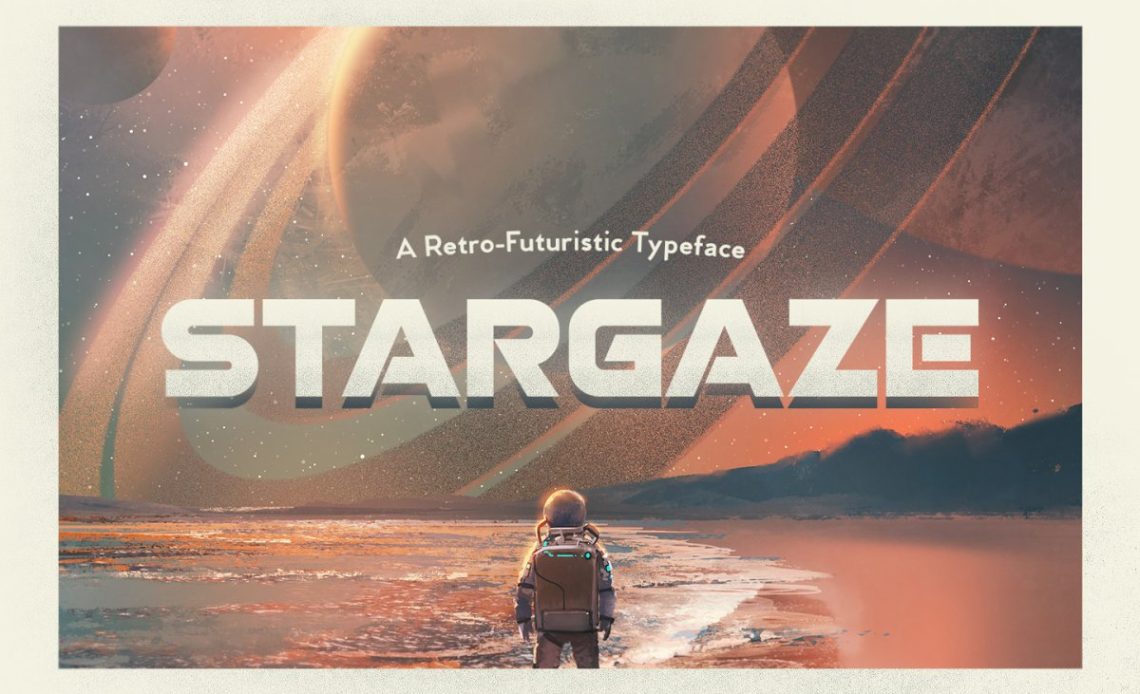
Welcome to Stargaze Typeface, the best font family for poster headings! Created by Mehmet Tugcu, Stargaze is a retro futuristic typeface that will add a unique touch to your designs. The font family comes in regular and stencil formats, both with a bold and big vibe that mixes sharp and round corners.
Stargaze is perfect for those looking to create a vintage yet modern feel to their designs, reminiscent of old sci-fi movie titles. The font includes uppercase multilingual letters, numbers, and punctuation. Additionally, some of the stencil letters have reversed versions, which can be toggled with caps lock.
With Stargaze, you can give your posters, flyers, and other designs a professional and creative edge. The font's eye-catching and captivating design will make your message stand out and leave a lasting impression on your audience.